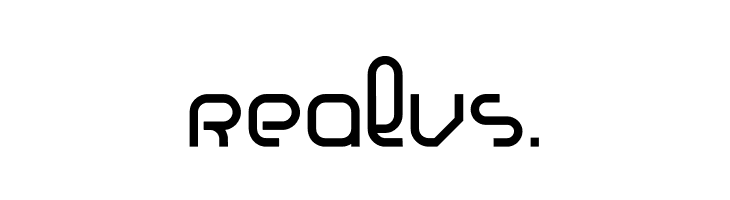
A bold, outlined collegiate-style font with a strong, three-dimensional effect.
A bold, brush-stroke style font with high contrast and an expressive, hand-drawn appearance.
( Fonts by Armando Nhabanga - Personal-use only. For commercial use please contact owner. )
A bold, geometric font with a three-dimensional, futuristic design.
( Fonts by MJType )
A playful, rounded font with smooth lines and a friendly appearance.
( Fonts by Stu Mertens - Personal-use only. For commercial use please contact owner. )
A bold, futuristic font with geometric and stencil-like elements.
A bold, decorative font with a vintage 3D shadow effect.
( Fonts by Aldi Ramdan - Personal-use only. For commercial use please contact owner. )
A bold, playful font with a hand-drawn, casual style.
An elegant, cursive script font with flowing curves and delicate loops.
A bold, playful handwritten font with dynamic and energetic characters.
A bold, 3D geometric font with a futuristic and abstract style.
( Fonts by Style-7 - www.styleseven.com - Personal-use only. For commercial use please contact owner. )
A clean, modern sans-serif font with consistent stroke width and excellent readability.
( Joanne Abellar - www.anandalusianbitch.com )
A playful, handwritten-style font with bold, rounded strokes and a quirky design.
( Fonts by Style-7 - www.styleseven.com - Personal-use only. For commercial use please contact owner. )
A geometric, square-based font with a modern, outlined design.